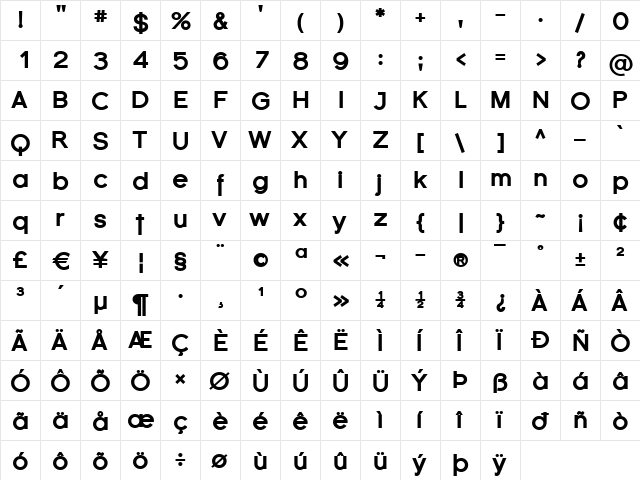
Florencesans Black Regular Font Preview
Florencesans Black Regular
Design Context for Florencesans Black Typeface
Florencesans Black takes a measured approach to typography — its balanced proportions and neutral character make it a reliable workhorse for both digital and print work.